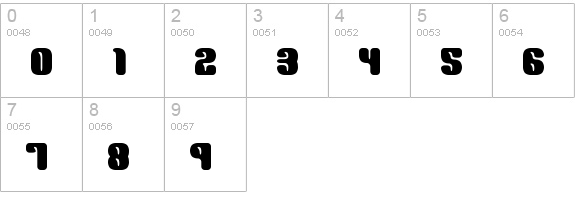
Revert Round BRK Font Details
Revert Round BRK font is a modern and stylish typeface that will add a touch of sophistication to your design projects. With its rounded edges and sleek lines, this font is perfect for creating eye-catching headlines, posters, and logos. The versatility of Revert Round BRK font makes it suitable for a wide range of design applications, from branding to packaging to web design. The best part? Revert Round BRK font is completely free to download at FontsMarket.com. This means you can enhance your projects with this beautiful font without having to spend a penny. Don't miss out on the opportunity to elevate your designs with the elegant and contemporary Revert Round BRK font. Download it today and take your creations to the next level!